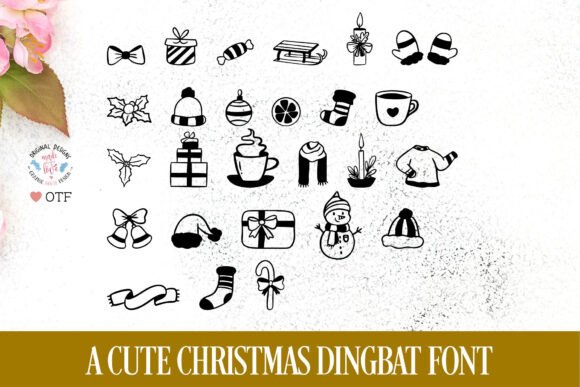
The Magic of Christmas Dingbat Font: Elevate Your Holiday Projects
It’s that time of the year again – the season of joy, giving, and, for designers and crafters, a flurry of holiday-themed projects! I still remember the year I was tasked with creating a Christmas card for a client’s family. I spent hours scouring the internet for the perfect font to give it that extra festive touch. That’s when I stumbled upon the Christmas Dingbat Font, and it instantly became my go-to for all my holiday projects.
What Makes Christmas Dingbat Font Special?
This charming font is designed to make your holiday projects shine. It contains letters from a-z, with each design corresponding to a letter. This means you can easily type out your favorite holiday phrases and instantly decorate them with festive flair.
Here’s what I love about Christmas Dingbat Font:
- ✅ Contains letters from a-z, making it versatile for various projects
- 🎄 Festive designs that add a touch of holiday magic to any project
- 🤔 Limited to uppercase letters (but you can always use a case converter online)
The Story Behind Christmas Dingbat Font
Legend has it that Christmas Dingbat Font was created by a designer who wanted to spread holiday cheer through typography. Inspired by vintage Christmas cards and decorations, they crafted a font that would bring joy and festivity to designs. And so, Christmas Dingbat Font was born!